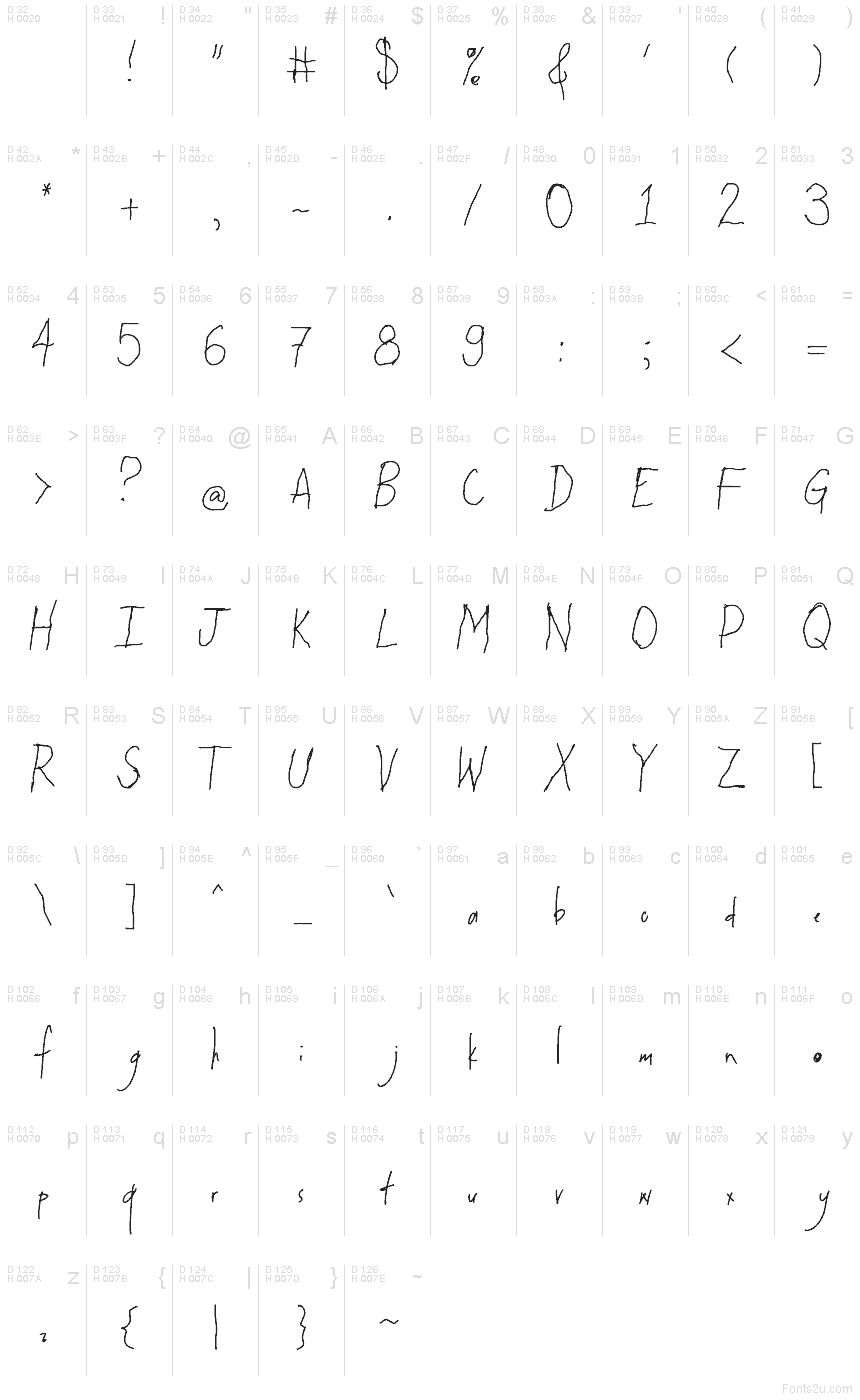
Arkinthor Hands
Arkinthor Hands font by The Branded Quotes is a light handwritten font that features a casual aesthetic, an organic flow, and artistic character. Its rough texture and modern script influence give it a uniquely elegant appearance suitable for different informal designs.